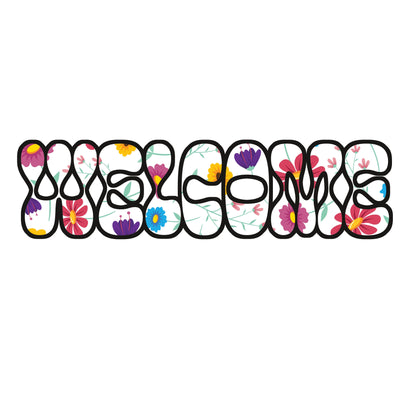
Cute welcome PNG Floral Design With a retro touch made in full color Perfect to use with your favorite cut machines such as Silhouette, Cricut, ScanNcut,
Welcome your guests with style and elegance using our exquisite Flower Welcome PNG. Designed with a fancy font and adorned with intricate floral elements, this digital download allows you to create beautiful welcome signs and decor effortlessly. Whether you're crafting a warm greeting for your home or designing a stunning welcome sign for an event, this versatile file has you covered.
Elegant Design: Elevate your welcome message with an elegant and fancy font paired with delicate floral details.
Fancy Font: The use of a fancy font adds a touch of sophistication and charm to your welcome message.